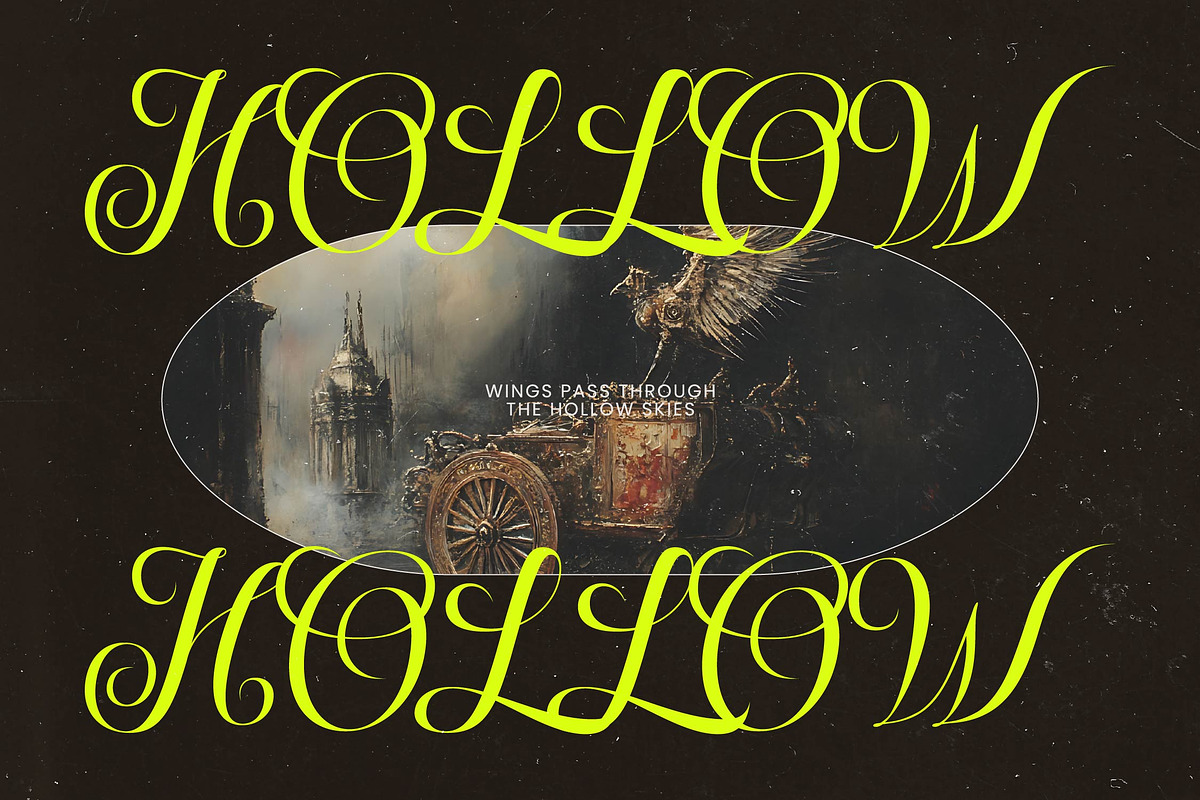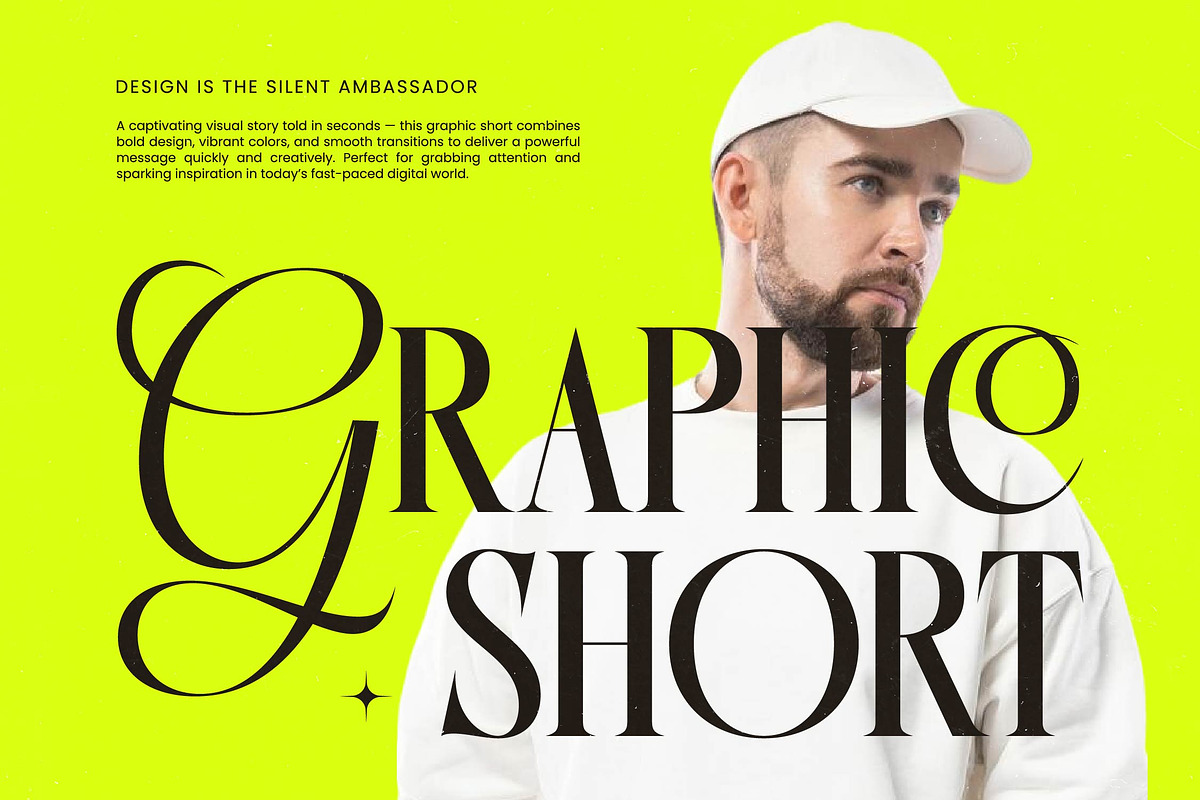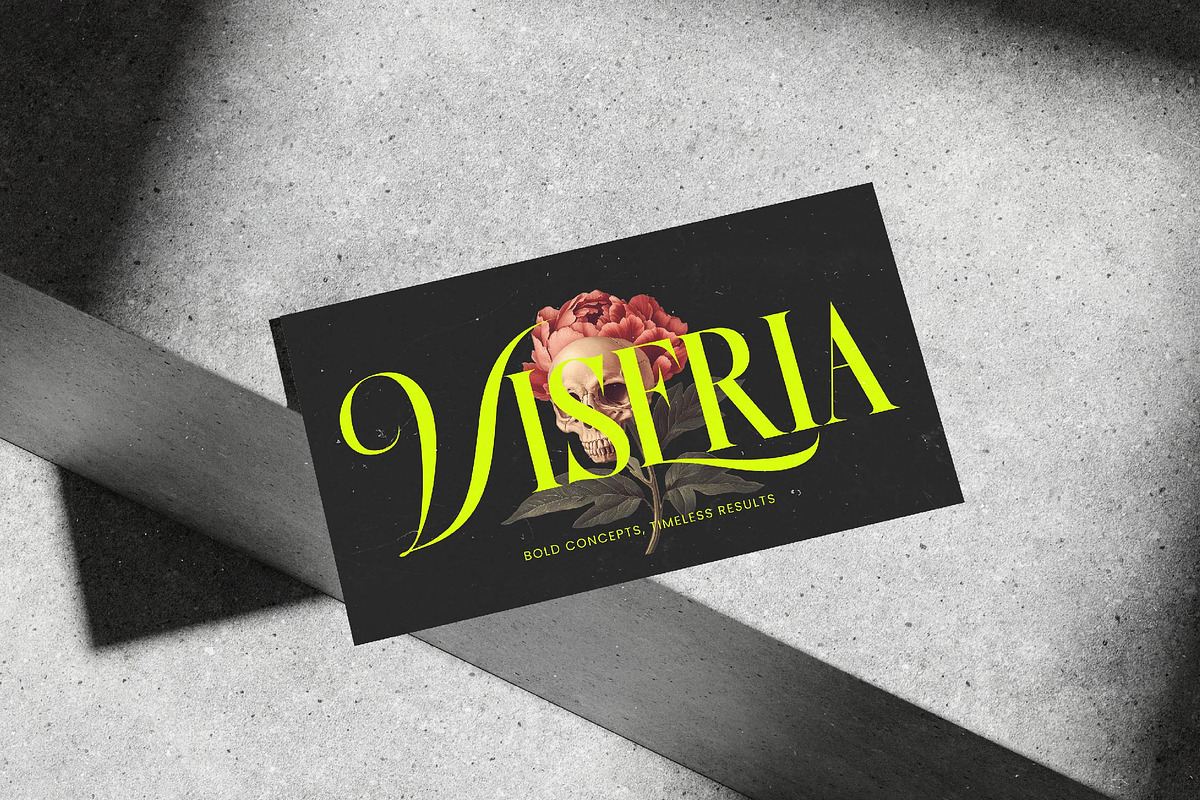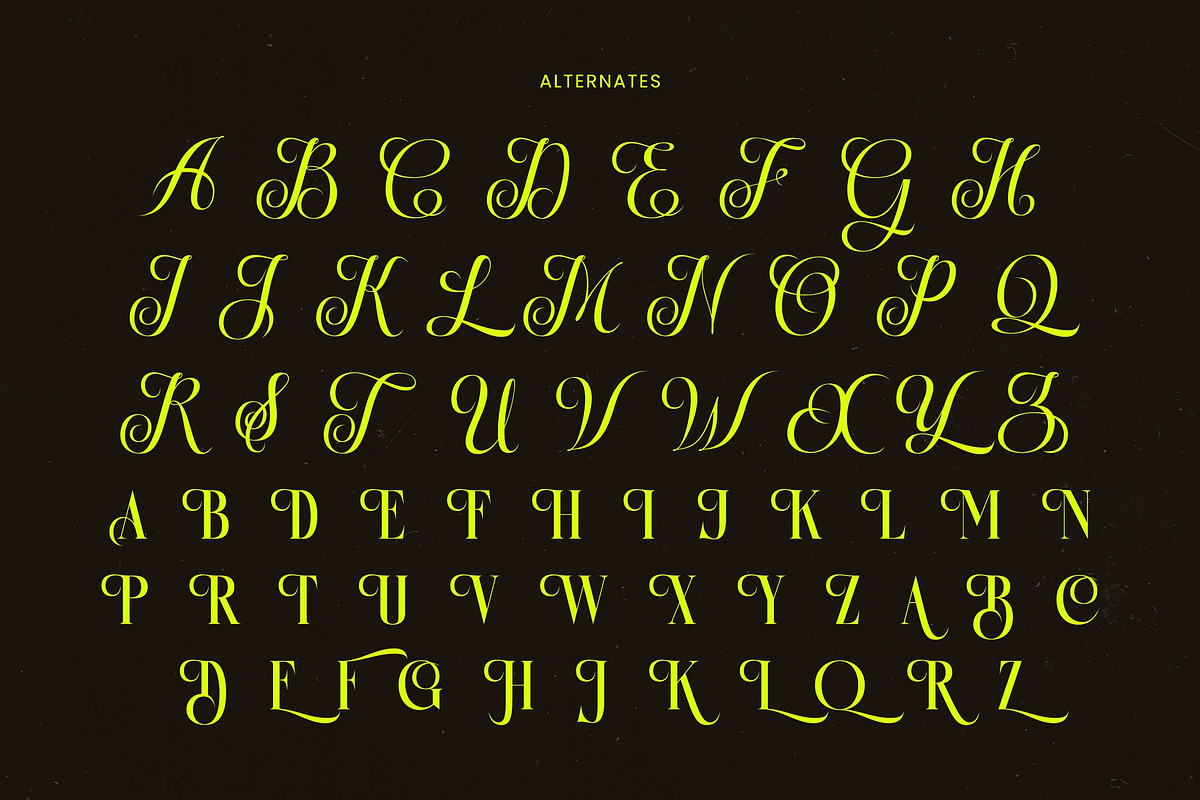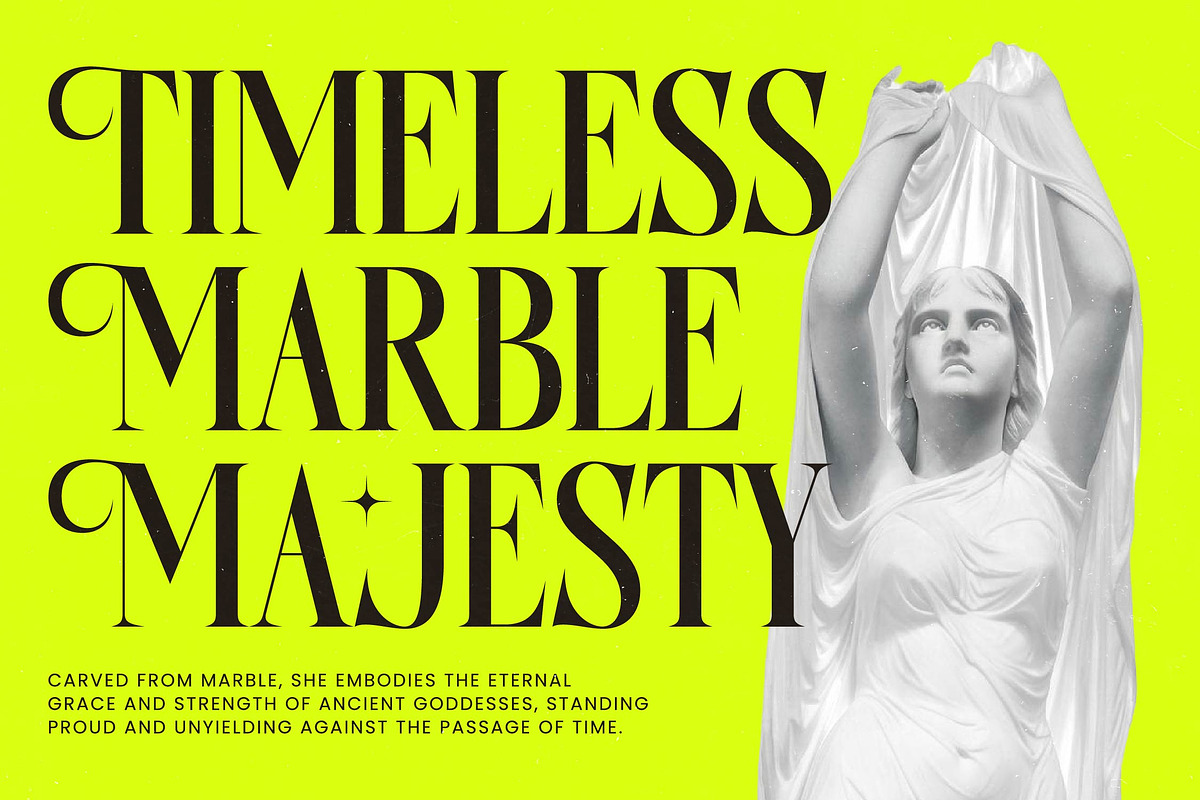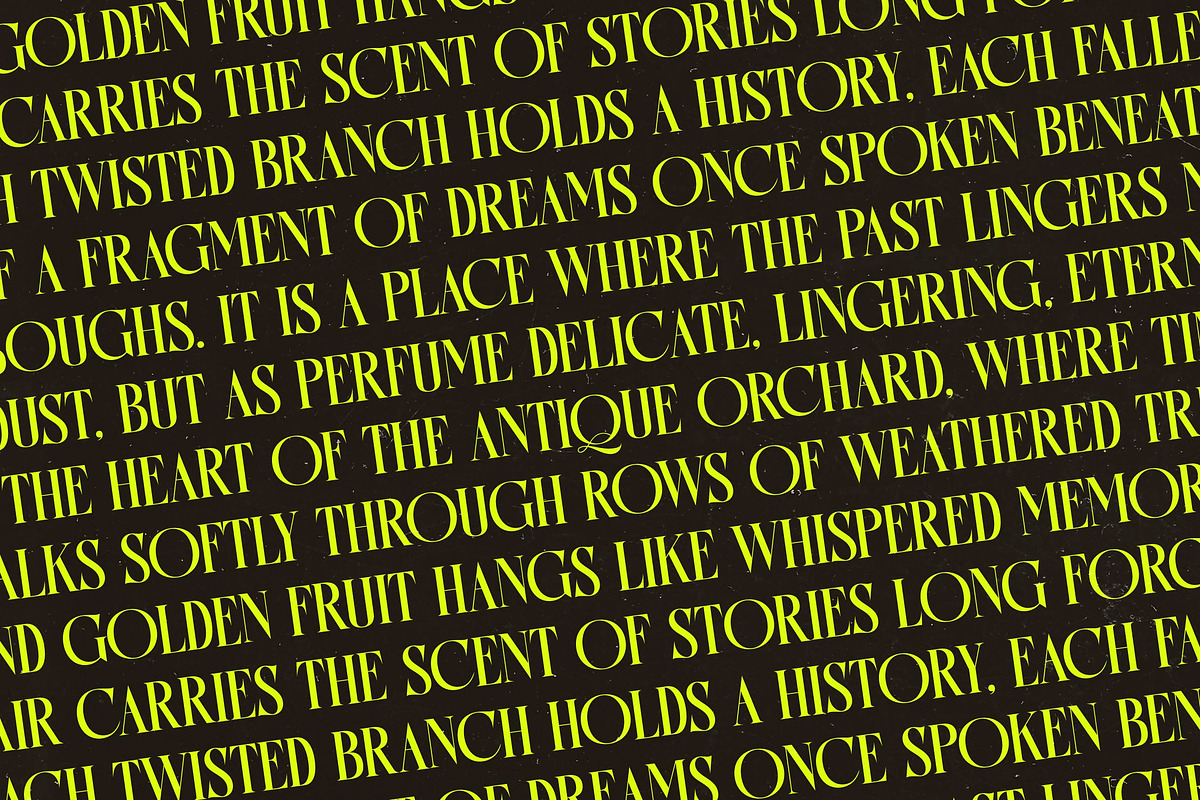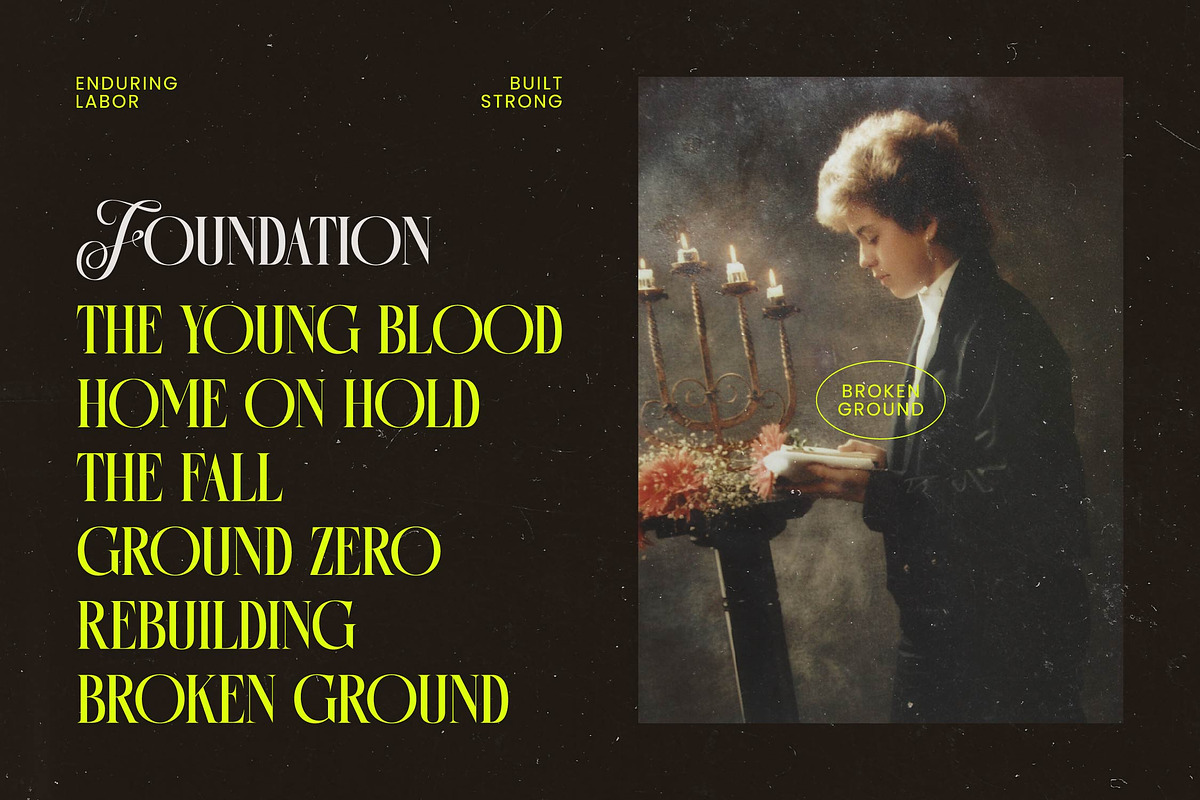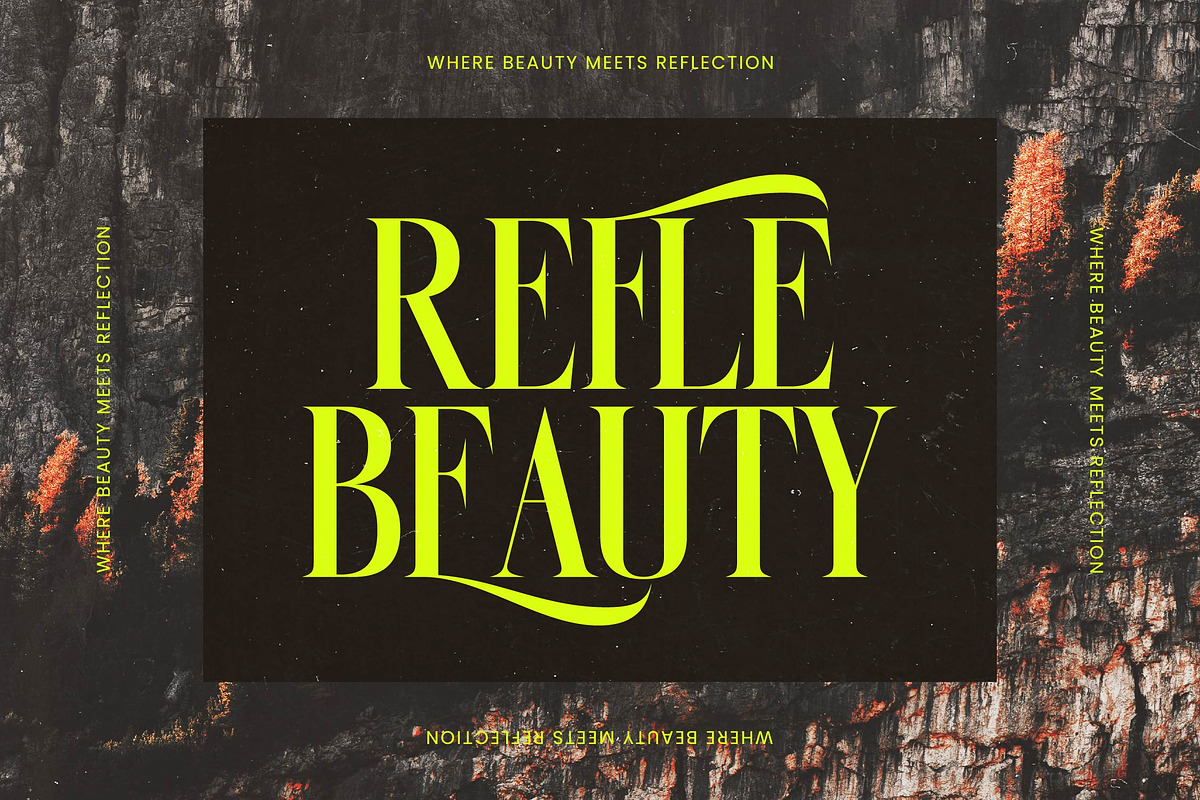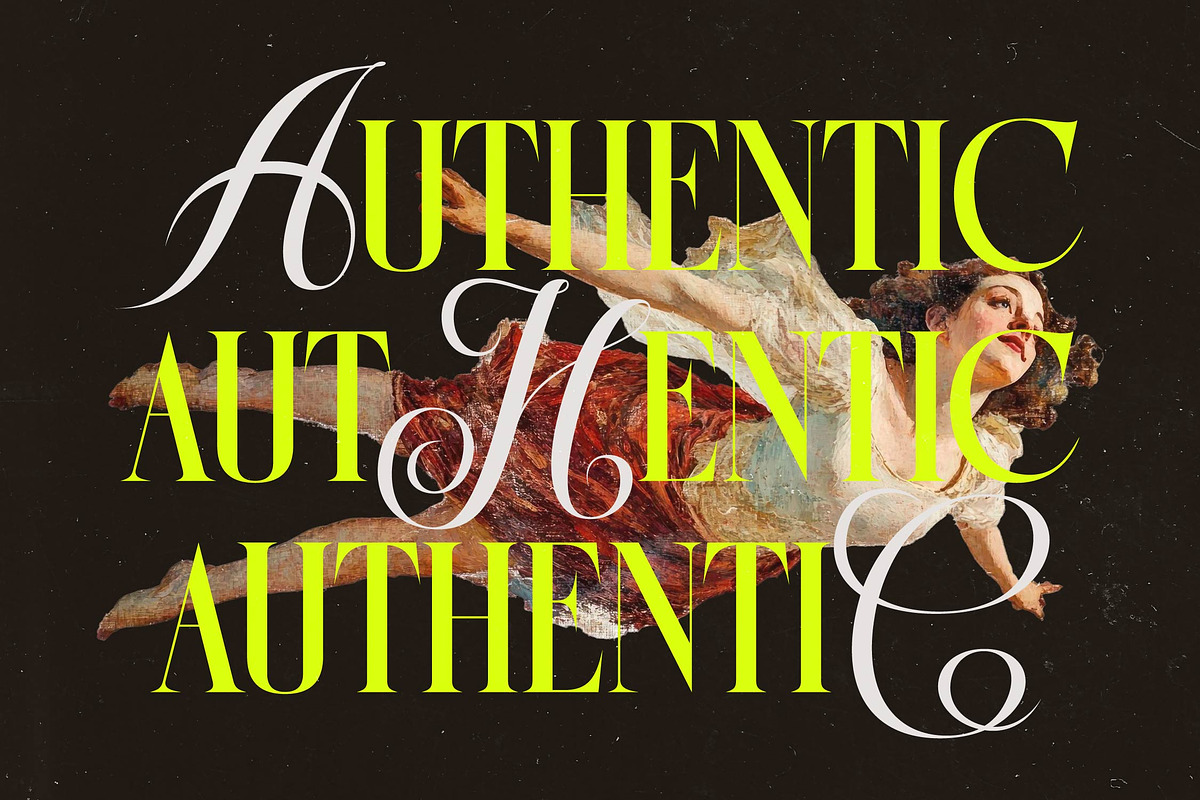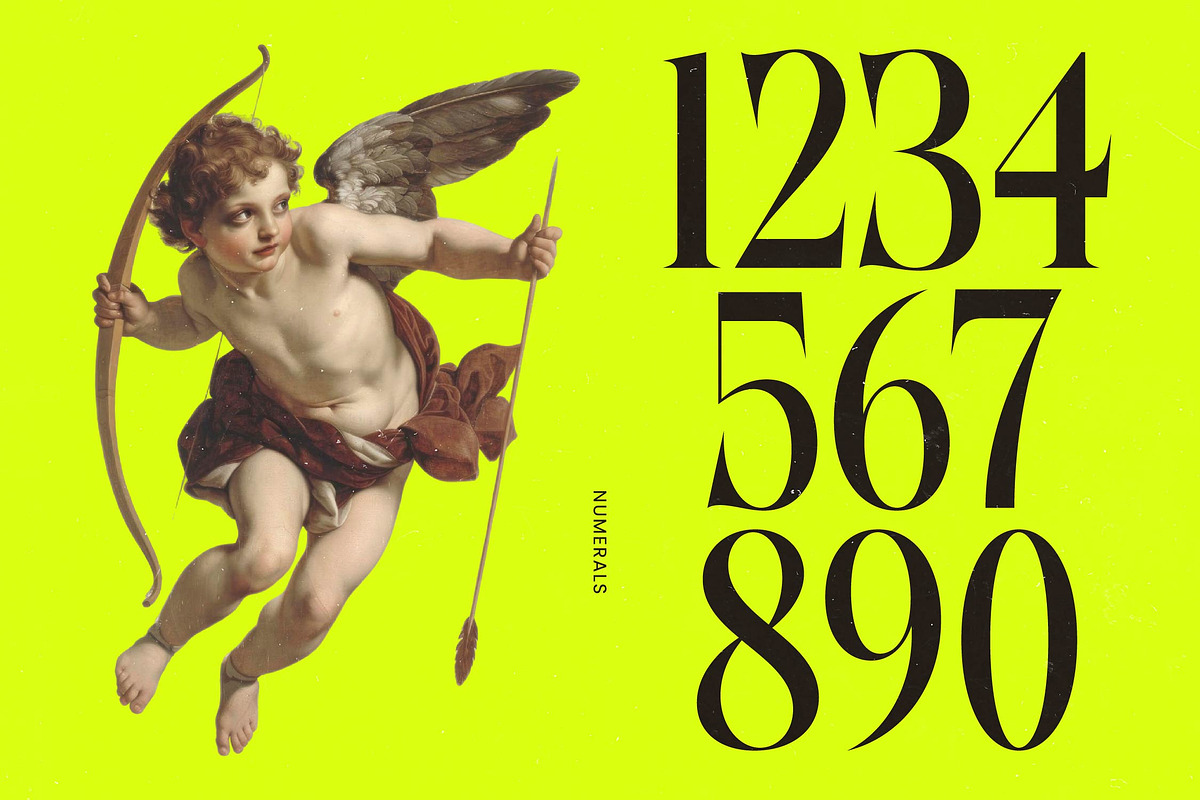
Antique Orchad Hybrid Serif Font
Discover the exquisite charm of Antique Orchad, a typeface designed to bridge the gap between classic heritage and contemporary elegance. This hybrid serif creates a captivating visual rhythm that instantly elevates any creative project to a masterpiece of design.
Inspired by the lush, curated beauty of historic gardens and the timelessness of vintage woodblock prints, this font captures a sense of organic sophistication. It carries the atmosphere of a bygone era, reimagined through a lens of sharp, modern precision for today's discerning creators.
Experience the power of modern serif display combined with luxury typography that commands attention. With its high-contrast serif architecture and graceful curves, Antique Orchad serves as a premier editorial font that guarantees a lasting branding impact for high-end clients.
Perfectly aligned with the current modern serif trend, this typeface fulfills the growing demand for editorial display fonts that offer more than just legibility. Its character-driven typography allows designers to tap into a nostalgic yet fresh aesthetic that is dominating global design galleries.
This versatile typeface is the ultimate choice for distinctive logo design and comprehensive branding identity systems. Whether applied to high-fashion editorial spreads, luxury product packaging, romantic wedding stationery, or avant-garde fashion lookbooks, it delivers unparalleled poise and style.
Beyond its striking appearance, the font package is rich with professional features including unique ligatures and creative alternates. Users can customize their text with flowing swashes and enjoy full multilingual support including international characters to reach a global audience.
- Ligature 15 Alternate 61